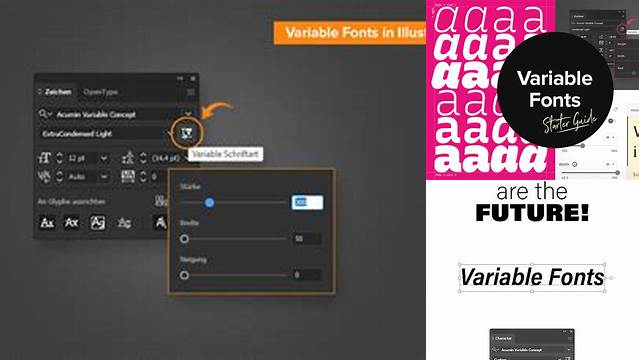
Illustrator Variable Fonts: A Comprehensive Guide
Variable fonts in Illustrator, guys, are a game-changer! They let you tweak font characteristics like weight, width, and slant with incredible precision, all within a single font file. This means smaller file sizes, faster loading times, and a whole lot more creative control. Let's dive into how you can leverage variable fonts in Adobe Illustrator to create stunning typography.
Understanding Variable Fonts
Before we jump into Illustrator, let's quickly understand what variable fonts are. Variable fonts consolidate multiple font styles (like regular, bold, italic) into one file. Instead of needing separate font files for each style, a variable font allows you to adjust various axes—like weight, width, slant, and optical size—on a continuous scale. This offers unparalleled flexibility and customization.
The Benefits of Using Variable Fonts
Using variable fonts in Illustrator offers a plethora of advantages. Firstly, they significantly reduce file sizes. Instead of embedding multiple font files, you only need one. Secondly, they provide granular control over font styles. You can fine-tune the weight, width, and other aspects to perfectly match your design needs. Thirdly, variable fonts enhance responsiveness. Because the font characteristics are adjustable, your typography can adapt seamlessly to different screen sizes and resolutions. Lastly, variable fonts support creative expression. You can create unique typographic effects that were previously difficult or impossible to achieve.
How to Add Variable Fonts to Illustrator
Using the Character Panel with Variable Fonts
The Character Panel in Illustrator is your best friend when working with variable fonts. To access it, go to Window > Type > Character. The Character Panel allows you to adjust various font properties, including weight, width, and slant. When a variable font is selected, you'll see sliders or numeric input fields for each variable axis, allowing you to fine-tune the font's appearance.
Exploring Variable Font Axes
Each variable font has its own set of axes that you can adjust. Common axes include Weight (wght), Width (wdth), Italic (ital), and Optical Size (opsz). The Weight axis controls the thickness of the font, ranging from thin to bold. The Width axis adjusts the horizontal scale of the font, making it narrower or wider. The Italic axis controls the slant of the font, and the Optical Size axis optimizes the font's appearance at different sizes. Experimenting with these axes can unlock a wide range of typographic possibilities.
Adjusting Font Weight in Illustrator
Adjusting font weight is one of the most common uses of variable fonts. With a variable font, you can set the weight to any value within the font's defined range, rather than being limited to predefined weights like regular, bold, or black. In the Character Panel, find the Weight axis and use the slider or numeric input field to set the desired weight. This allows for precise control over the font's appearance, ensuring it perfectly matches your design.
Fine-Tuning Font Thickness
Sometimes, you need a font weight that's just a little bit heavier or lighter than the standard options. Variable fonts make this easy. By using the Weight axis in the Character Panel, you can incrementally adjust the font's thickness to achieve the perfect balance. This is particularly useful when you need to harmonize the font with other design elements or create subtle visual hierarchies.
Adjusting Font Width in Illustrator
The width of a font can significantly impact the overall look and feel of your design. Variable fonts allow you to adjust the width of the font, making it narrower or wider as needed. In the Character Panel, find the Width axis and use the slider or numeric input field to set the desired width. This is useful for fitting text into tight spaces or creating a more expansive and open layout.
Creating Condensed and Expanded Text
Variable fonts offer a seamless way to create condensed and expanded text styles. By adjusting the Width axis, you can easily make the font narrower for a condensed look or wider for an expanded look. This level of control is invaluable when you need to optimize the layout of your text or create unique typographic effects. Whether you're working on a poster, a website, or a mobile app, the ability to adjust font width can make a significant difference.
Working with Font Slant and Italics
Variable fonts also give you precise control over font slant and italics. Instead of simply applying an italic style, you can fine-tune the angle of the slant to achieve the perfect look. In the Character Panel, find the Italic axis and use the slider or numeric input field to set the desired angle. This is particularly useful for creating subtle variations in text styles or adding a touch of elegance to your design. Experimenting with different slant angles can open up a world of creative possibilities.
Achieving Perfect Italic Angles
Traditional italic styles can sometimes feel too generic or lack the nuance you need. Variable fonts solve this problem by allowing you to precisely control the italic angle. Whether you want a subtle slant or a more pronounced italic effect, variable fonts give you the flexibility to achieve the perfect look. This level of control is essential for creating professional and polished designs. So, ditch those old italic buttons and embrace the precision of variable fonts!
Using Optical Size for Optimal Readability
Optical size is another important aspect of variable fonts. It refers to the font's design being optimized for different sizes. A font designed for small sizes will have different characteristics than one designed for large sizes. With variable fonts, you can adjust the Optical Size axis to ensure optimal readability at any size. In the Character Panel, find the Optical Size axis and use the slider or numeric input field to set the desired size.
Optimizing Text for Different Sizes
When designing for various media, such as print and digital, it’s crucial to optimize your text for different sizes. Variable fonts make this easy by allowing you to adjust the optical size. A smaller optical size will have features optimized for readability at small sizes, such as increased letter spacing and adjusted stroke thicknesses. A larger optical size will be optimized for display at larger sizes, with finer details and more elegant forms.
Combining Multiple Variable Font Axes
The real power of variable fonts comes from the ability to combine multiple axes. For example, you can adjust both the weight and width of a font to create a unique and customized look. Experimenting with different combinations of axes can unlock a wide range of typographic possibilities. Don't be afraid to push the boundaries and see what you can create.
Creating Unique Typographic Styles
By combining multiple variable font axes, you can create typographic styles that are truly unique. For instance, you can create a font that is both bold and narrow, or thin and wide. This level of customization allows you to perfectly match the font to your design needs. The possibilities are endless, so get creative and explore the potential of variable fonts! You might just stumble upon your new favorite font style.
Saving and Exporting Files with Variable Fonts
When working with variable fonts, it's important to ensure that your files are saved and exported correctly. Save your Illustrator files in a format that supports variable fonts, such as .ai or .pdf. When exporting to other formats, such as .svg or .png, make sure to embed the font or outline the text to preserve its appearance. This will ensure that your typography looks the same regardless of the platform or device it's viewed on.
Ensuring Font Compatibility
Font compatibility is crucial when sharing files with others or exporting for different platforms. To ensure that your variable fonts are displayed correctly, embed the font in your document or convert the text to outlines. Embedding the font includes the font file within your document, ensuring that it's available even if the recipient doesn't have the font installed. Converting the text to outlines transforms the text into vector shapes, eliminating the need for the font file altogether. Choose the method that best suits your needs and always double-check your exported files to ensure that the typography looks as expected.
Troubleshooting Common Variable Font Issues
Even with their many benefits, variable fonts can sometimes present challenges. One common issue is that some older software may not fully support variable fonts. In these cases, you may need to outline the text or use a fallback font. Another issue is that variable fonts can sometimes cause performance problems, especially when used extensively in large documents. To mitigate this, try to use variable fonts sparingly and optimize your Illustrator files.
Handling Font Rendering Problems
Font rendering problems can be frustrating, but they're often easy to fix. If you notice that your variable font is not rendering correctly, first make sure that you have the latest version of Illustrator installed. Next, check that the font is properly installed and activated. If the problem persists, try clearing your font cache or restarting your computer. In some cases, the issue may be related to the specific font itself. If so, try using a different variable font or contacting the font's developer for support.
Variable Fonts vs. Traditional Fonts
Variable fonts offer several advantages over traditional fonts. Variable fonts consolidate multiple font styles (like regular, bold, italic) into one file. Instead of needing separate font files for each style, a variable font allows you to adjust various axes—like weight, width, slant, and optical size—on a continuous scale. This offers unparalleled flexibility and customization.
Choosing the Right Font Type for Your Project
The choice between variable fonts and traditional fonts depends on your project's specific needs. If you require fine-grained control over font styles and want to reduce file sizes, variable fonts are the way to go. However, if you're working with older software or need to ensure maximum compatibility, traditional fonts may be a better choice. Consider the pros and cons of each type and choose the one that best suits your requirements.
Best Practices for Using Variable Fonts in Design
When using variable fonts in your designs, there are several best practices to keep in mind. First, choose variable fonts that are well-designed and offer a wide range of axes. Second, experiment with different combinations of axes to create unique typographic styles. Third, ensure that your variable fonts are properly embedded or outlined when saving and exporting your files. Finally, always test your designs on different devices and platforms to ensure compatibility.
Maximizing the Impact of Your Typography
Typography is a powerful tool for conveying your message and enhancing your design. To maximize the impact of your typography, use variable fonts to create unique and customized styles. Pay attention to font weight, width, slant, and optical size to achieve the perfect look. Use typography to create visual hierarchies and guide the viewer's eye. And most importantly, always choose fonts that are legible and appropriate for your target audience.
The Future of Variable Fonts
The future of variable fonts looks bright. As more designers and developers embrace variable fonts, we can expect to see even more innovative and creative uses of this technology. Variable fonts will likely become an essential part of the design toolkit, offering unparalleled flexibility and customization. So, stay ahead of the curve and start experimenting with variable fonts today!
Emerging Trends in Typography
The world of typography is constantly evolving, with new trends and technologies emerging all the time. Variable fonts are just one part of this exciting landscape. Other emerging trends include kinetic typography, which involves animated text, and generative typography, which uses algorithms to create unique and dynamic typefaces. By staying informed about these trends, you can keep your designs fresh and innovative.
Understanding Font Licensing for Variable Fonts
Font licensing is a critical aspect of using variable fonts in your projects. Always ensure you have the appropriate license for the fonts you use, especially for commercial projects. Licenses vary depending on the font foundry and can range from free for personal use to paid licenses for commercial applications. Review the terms carefully to avoid copyright infringement.
Navigating Different Font Licenses
Navigating font licenses can be complex, but it's essential to understand the terms before using a font. Common types of licenses include desktop licenses, web licenses, and app licenses. Desktop licenses allow you to use the font in print and graphic design projects. Web licenses allow you to embed the font on a website. App licenses allow you to include the font in a mobile app. Always read the fine print and ensure you comply with the license terms to avoid legal issues.
Integrating Variable Fonts with Web Design
Variable fonts are a boon for web design, offering improved performance and flexibility. By using variable fonts, you can reduce the number of font files your website needs to load, leading to faster loading times and a better user experience. Additionally, variable fonts allow you to create more responsive and adaptable typography that looks great on any device. It's the modern web designer's secret weapon.
Optimizing Website Performance with Variable Fonts
Website performance is crucial for user experience and SEO. Variable fonts can help you optimize your website by reducing the number of font files required. Instead of loading separate font files for regular, bold, and italic styles, you can use a single variable font file that contains all of these styles. This reduces the number of HTTP requests and improves your website's loading speed.
Variable Fonts and Accessibility
Variable fonts can significantly enhance accessibility in design. By allowing users to adjust font weight, width, and size, you can cater to a wider range of visual preferences and needs. Clear and adjustable typography ensures that your content is readable and accessible to everyone, including those with visual impairments. Accessibility isn't just a feature; it's a necessity.
Designing for Inclusivity
Designing for inclusivity means creating designs that are accessible to everyone, regardless of their abilities. Variable fonts can play a key role in this by allowing users to customize the appearance of text to suit their individual needs. For example, users with low vision may benefit from increasing the font weight or size, while users with dyslexia may find it helpful to adjust the letter spacing or font style.
Advanced Techniques for Variable Fonts in Illustrator
For those looking to push the boundaries of variable fonts in Illustrator, several advanced techniques can be explored. These include using variable fonts in conjunction with graphic styles, creating custom character styles that leverage variable font axes, and integrating variable fonts with data-driven graphics. Advanced techniques can elevate your designs.
Creating Dynamic Typography Effects
Dynamic typography effects can add a touch of creativity and dynamism to your designs. Variable fonts make it easy to create these effects by allowing you to animate the font's axes. For example, you can create a text effect that changes the font weight or width over time. This can be achieved using animation software or by scripting directly within Illustrator.
Exploring Variable Font Foundries
Numerous font foundries specialize in variable fonts, each offering unique styles and functionalities. Researching different foundries can lead you to discover the perfect variable font for your project. Some popular foundries include Adobe Fonts, Google Fonts, and independent foundries like Klim Type Foundry and Production Type. Foundries are the backbone of typography.
Finding the Perfect Font for Your Needs
Finding the perfect font is a crucial step in any design project. When exploring variable font foundries, consider the following factors: the font's style and personality, the range of axes available, the font's compatibility with different software and platforms, and the font's licensing terms. Take your time, experiment with different options, and choose the font that best suits your project's needs.
Variable Fonts and Branding
Variable fonts offer a unique opportunity to enhance branding. By creating a custom variable font that reflects your brand's personality, you can create a consistent and recognizable visual identity. A well-designed variable font can become a cornerstone of your brand's visual language. Branding is key to recognition.
Creating a Unique Brand Identity
Creating a unique brand identity involves crafting a visual language that sets your brand apart from the competition. Variable fonts can play a significant role in this by allowing you to create a custom typeface that is tailored to your brand's personality. For example, a modern and innovative brand might choose a variable font with a wide range of weights and widths, while a traditional and elegant brand might opt for a more classic variable font with subtle variations.
Variable Fonts in Print Design
Variable fonts aren't just for digital design; they can also be incredibly useful in print. By using variable fonts in print, you can achieve greater consistency and control over your typography. Additionally, variable fonts can help reduce file sizes and simplify the printing process. Print is not dead, and variable fonts make it easier than ever.
Achieving Precise Typography in Print
Achieving precise typography in print requires careful attention to detail. Variable fonts can help you achieve this by allowing you to fine-tune the font's weight, width, and other characteristics. This is particularly useful when you need to match the font to specific design elements or ensure optimal readability. Print design demands precision.
Variable Fonts for UI/UX Design
Variable fonts are revolutionizing UI/UX design. By allowing designers to create more flexible and responsive typography, variable fonts can enhance the user experience across different devices and screen sizes. Responsive typography ensures that text is always legible and visually appealing, regardless of the device it's viewed on. UI/UX is about user experience.
Enhancing User Experience with Typography
Typography plays a critical role in user experience. By using variable fonts to create clear, legible, and visually appealing text, you can enhance the overall user experience of your website or app. Consider factors such as font size, weight, letter spacing, and line height to optimize readability and visual comfort. User experience is paramount.
Optimizing Variable Fonts for Performance
While variable fonts offer many benefits, it's essential to optimize them for performance. Large variable font files can slow down your website or app, so it's crucial to use techniques such as font subsetting and compression to reduce file sizes. Performance optimization ensures a smooth user experience.
Reducing Font File Sizes
Reducing font file sizes is essential for optimizing performance. Font subsetting involves removing unused characters from the font file, while compression reduces the overall size of the file without affecting its quality. These techniques can significantly reduce the size of your variable font files and improve your website or app's loading speed. Optimize for speed.
Common Mistakes to Avoid with Variable Fonts
Even with their many advantages, variable fonts can be misused if not handled carefully. One common mistake is overusing variable font axes, which can lead to a cluttered and inconsistent design. Another mistake is failing to optimize variable fonts for performance, which can slow down your website or app. Avoid these common mistakes to make the most of variable fonts.
Ensuring Design Consistency
Ensuring design consistency is crucial for creating a professional and cohesive visual identity. When using variable fonts, be mindful of how you are adjusting the font axes and ensure that you are using consistent values throughout your design. Avoid making drastic changes to the font's appearance, as this can create a disjointed and unprofessional look. Consistency is key.
The Relationship Between Variable Fonts and Animation
Variable fonts and animation go hand in hand. By animating the variable font axes, designers can create dynamic and engaging typographic effects. This can add a new level of creativity and visual interest to your designs. Animation brings typography to life.
Creating Engaging Typographic Animations
Creating engaging typographic animations involves using variable fonts to animate the font's weight, width, or other characteristics over time. This can be achieved using animation software or by scripting directly within Illustrator. The key is to create subtle and purposeful animations that enhance the message and overall design. Engage your audience.
Variable Fonts as a Tool for Storytelling
Variable fonts can be a powerful tool for storytelling. By using typography to convey emotion and create visual hierarchies, designers can enhance the narrative and engage the audience on a deeper level. Typography can tell a story.
Enhancing Narratives Through Typography
Enhancing narratives through typography involves using variable fonts to create a visual language that supports the story. For example, a bold and heavy font weight can convey strength and power, while a light and delicate font weight can convey fragility and vulnerability. By carefully selecting and adjusting the font's characteristics, you can enhance the emotional impact of your story. Tell your story effectively.
Variable Fonts and Multilingual Design
Variable fonts are particularly useful for multilingual design. By supporting a wide range of characters and glyphs, variable fonts can ensure that your designs look great in any language. This is especially important for global brands that need to communicate with audiences in multiple countries. Speak to the world.
Supporting Global Audiences
Supporting global audiences involves designing for different languages and cultures. Variable fonts can help you achieve this by providing comprehensive character sets and glyphs for various languages. Additionally, variable fonts allow you to adjust the font's weight and width to optimize readability in different scripts. Reach a global audience.